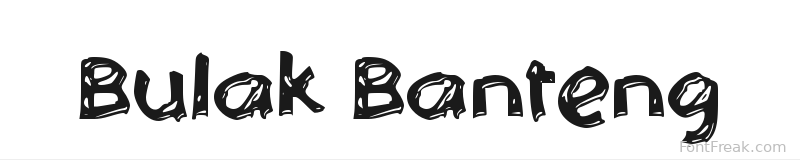
Bulak Banteng
Bulak Banteng, designed by Wahyu Eka Prasetya, is a captivating display font that showcases a unique blend of creativity and playfulness. This font, categorized as a decorative typeface, stands out with its irregular, hand-drawn strokes that convey a sense of whimsy and spontaneity. The font features a medium stroke weight with varying contrast, creating a lively visual rhythm that engages the viewer. Its spacing is intentionally loose, enhancing readability while allowing the quirky character of each letter to shine through.
The Bulak Banteng font is perfect for a variety of creative applications. It can be effectively utilized in designing eye-catching wedding invitations, where its playful style adds a personal touch. Additionally, this font works wonderfully for movie posters, especially for genres that aim to evoke nostalgia or fun, such as animated films. Restaurant menus can also benefit from the font's unique design, making dishes appear more inviting and memorable. Content creators will find this font ideal for social media graphics, where standing out in a crowded digital space is crucial.
What sets the Bulak Banteng font apart is its ability to infuse personality into any design. The playful nature, coupled with its artistic charm, allows it to resonate with audiences, making it a memorable choice for any creative endeavor. For those interested in exploring this unique typeface, the Bulak Banteng font free download is available, inviting users to incorporate its charm into their work.